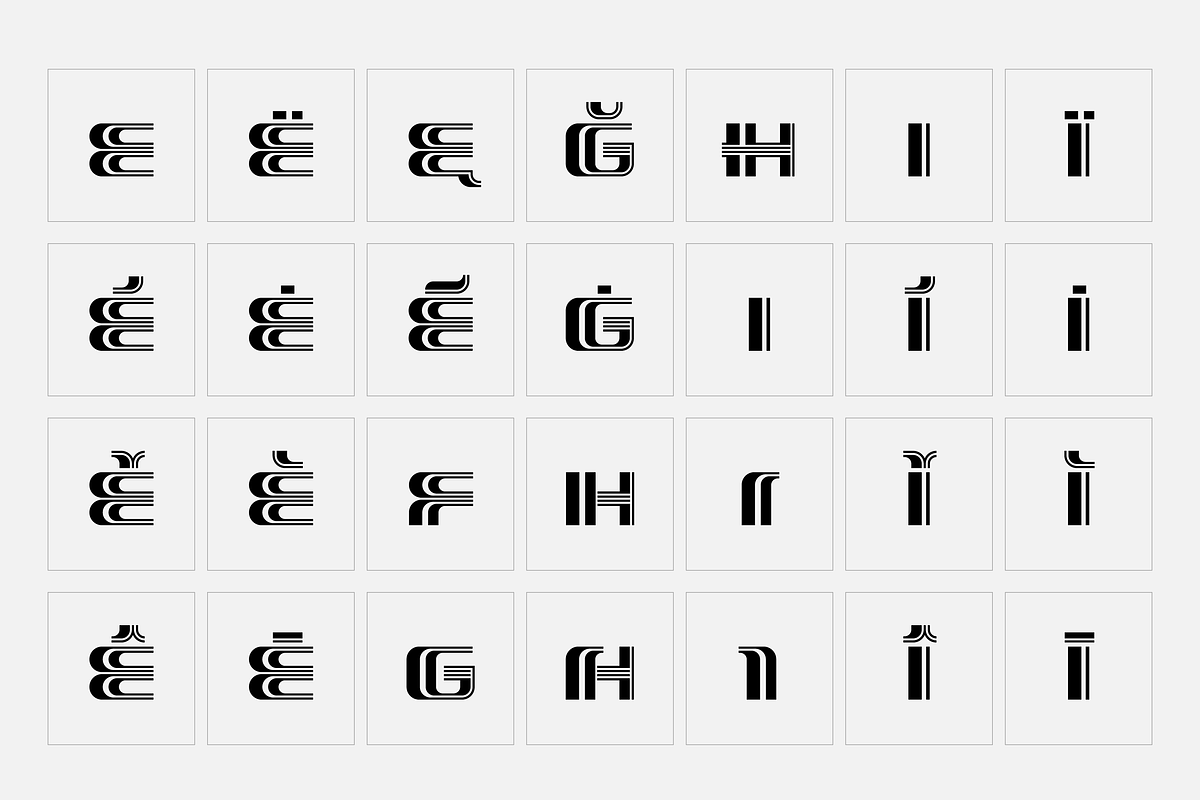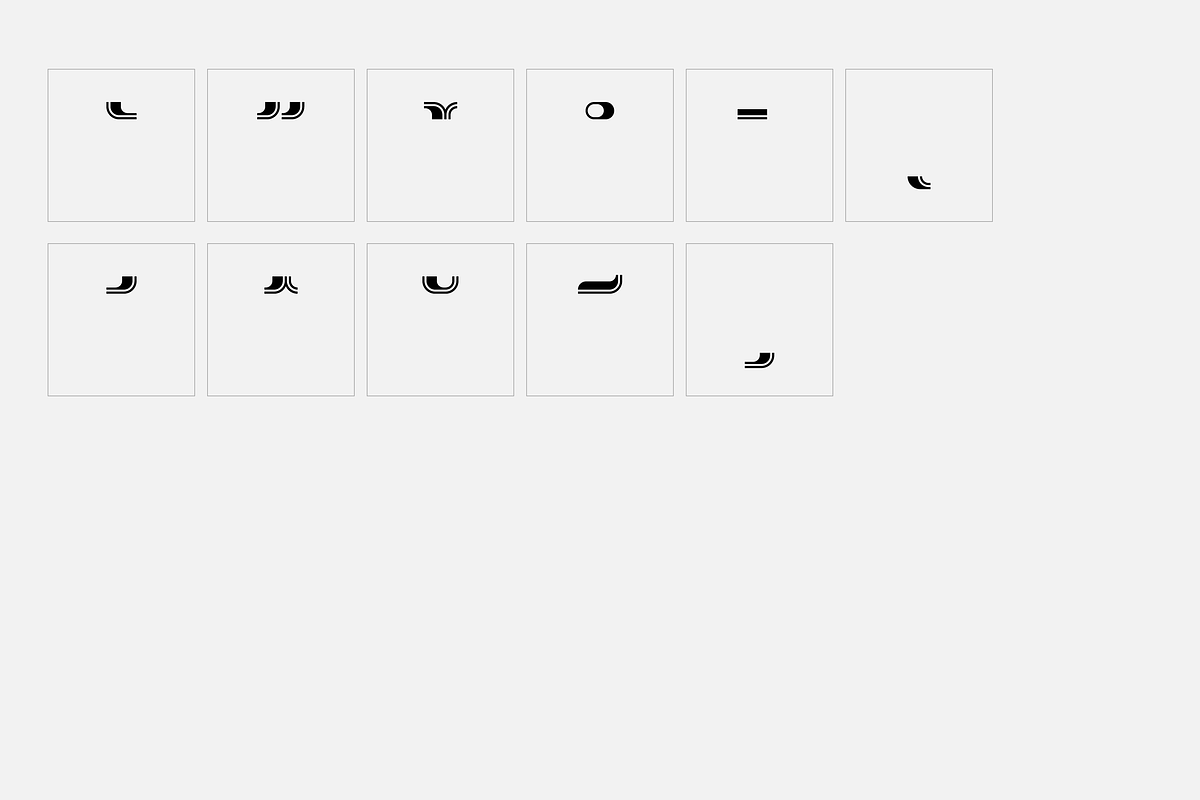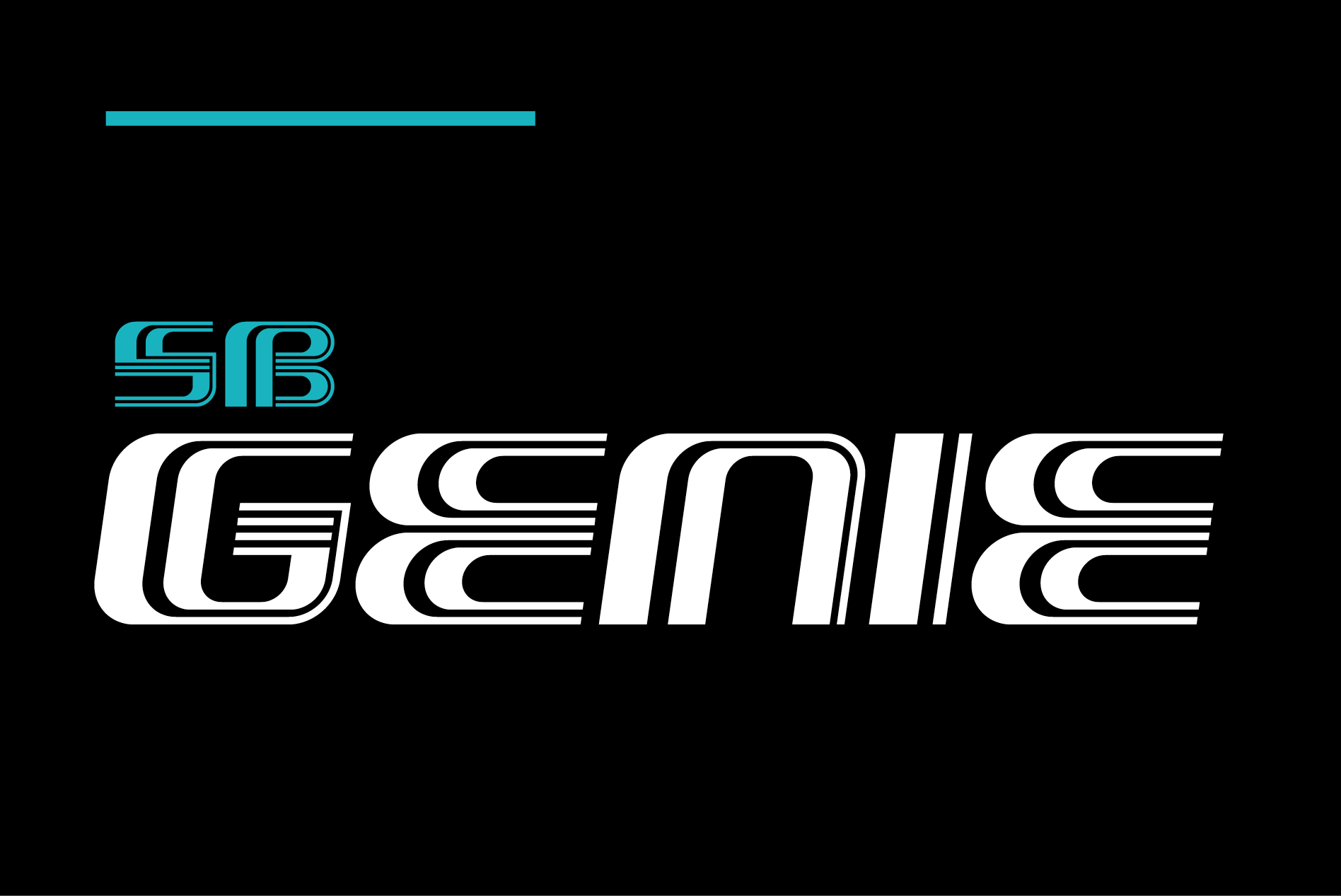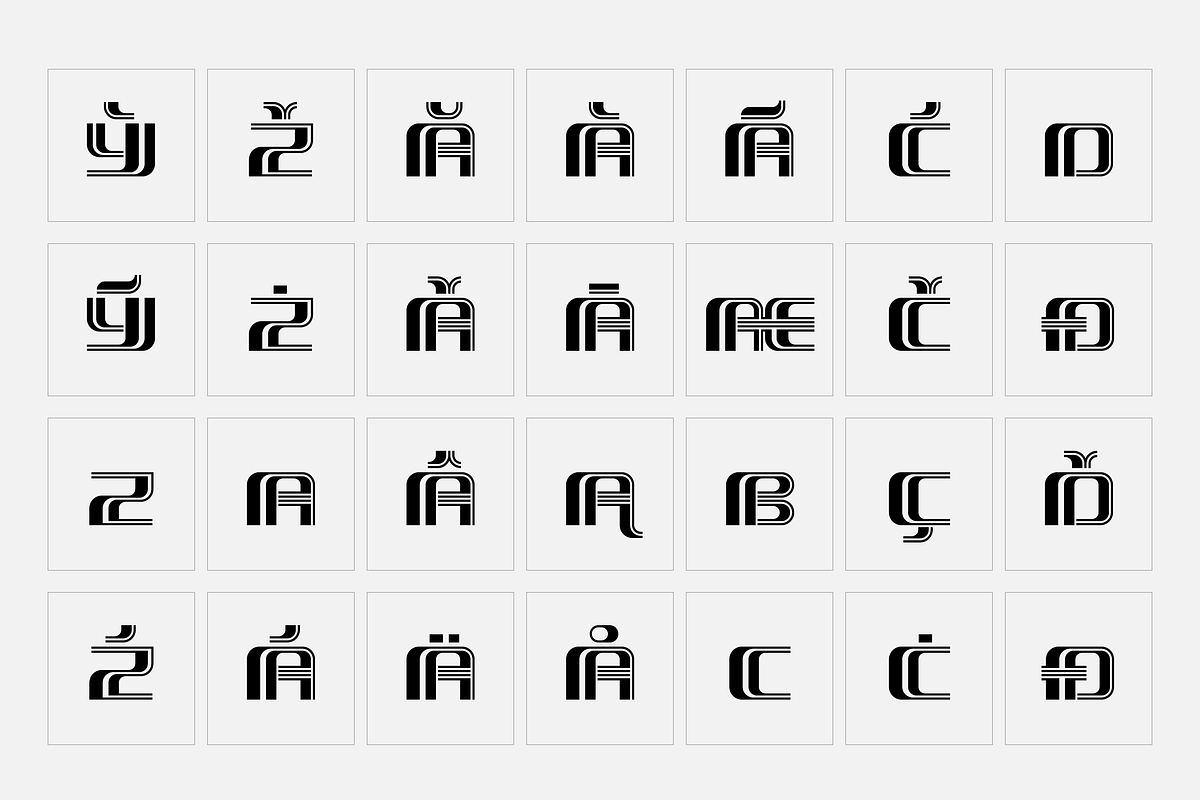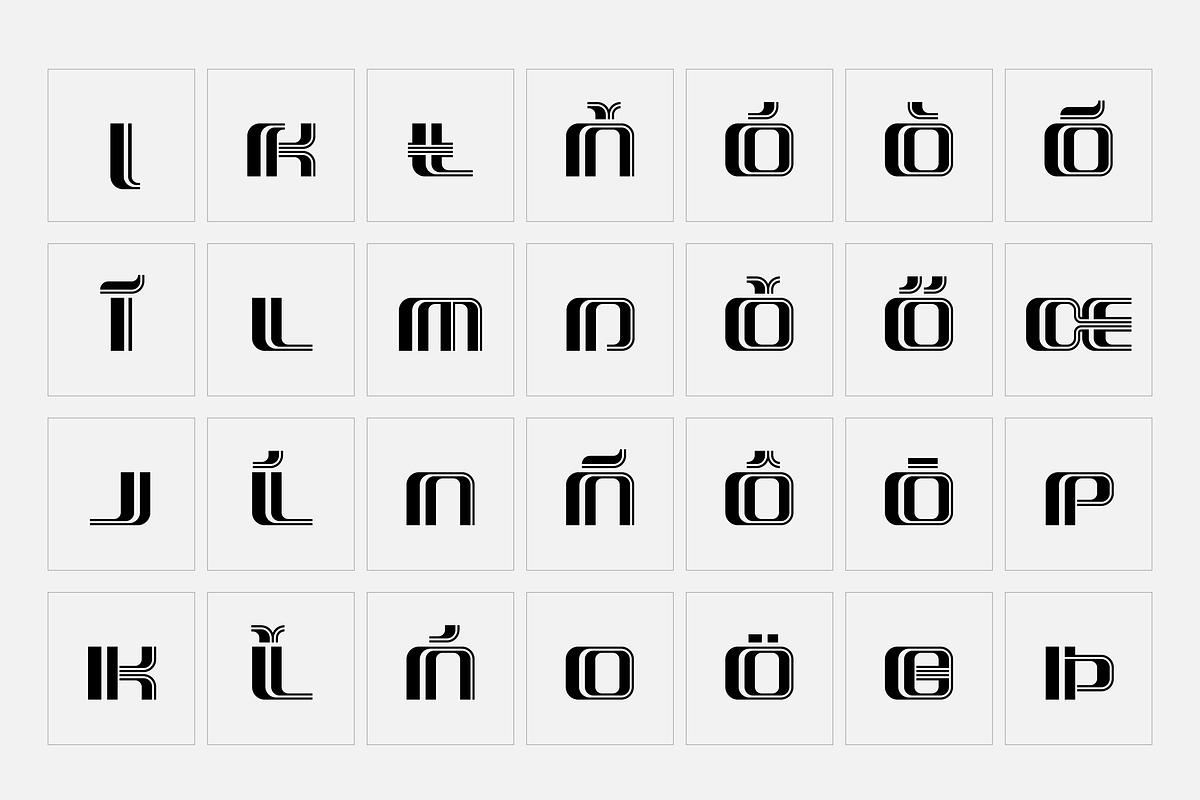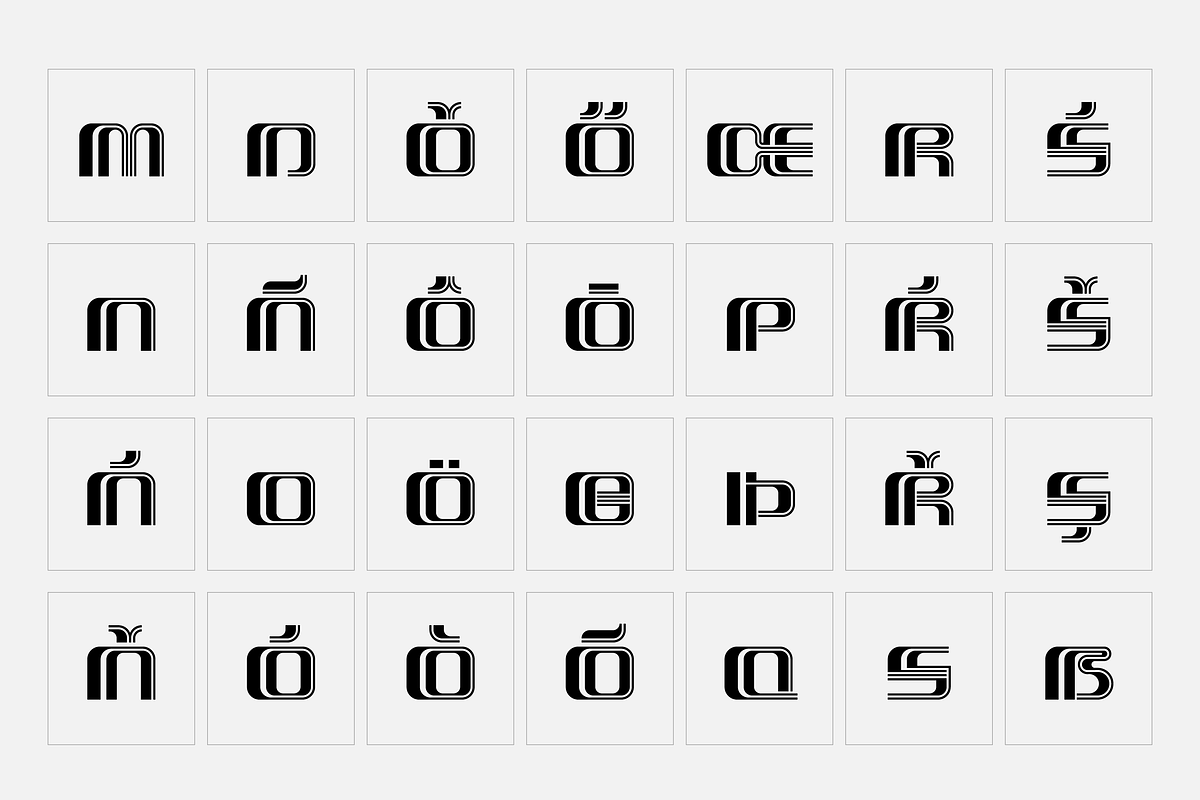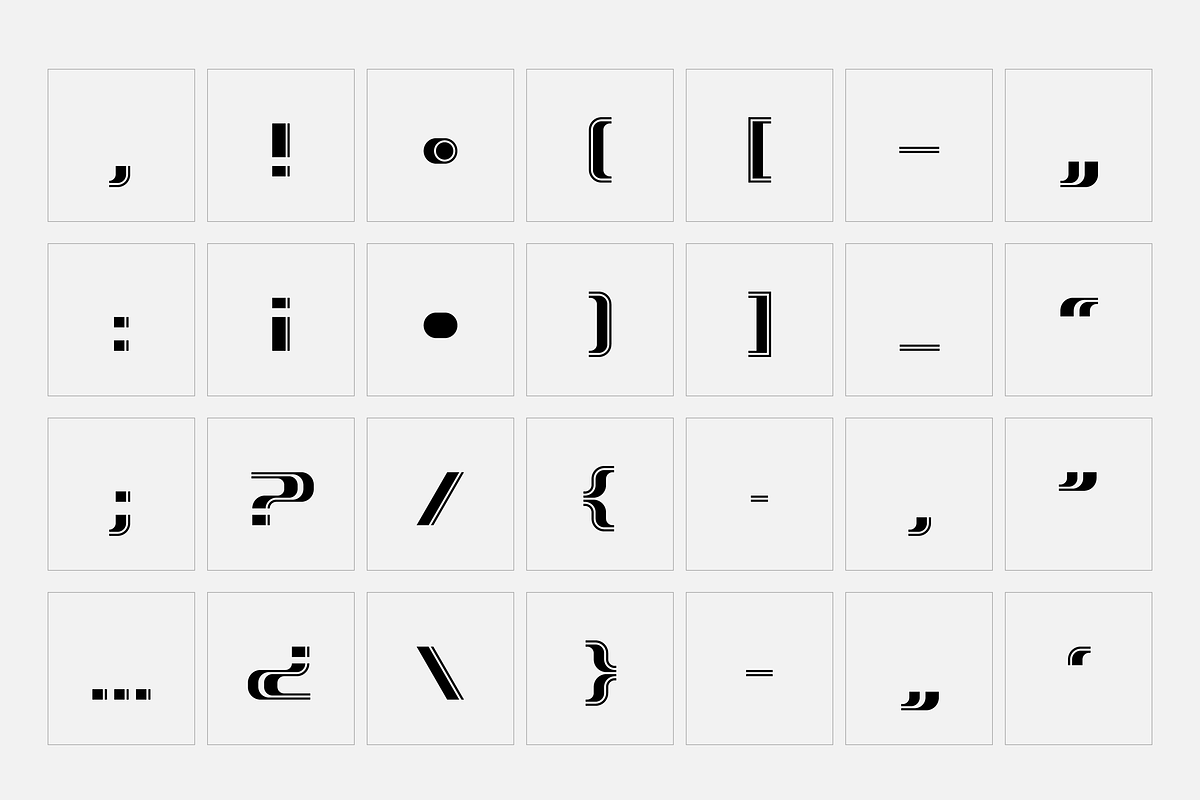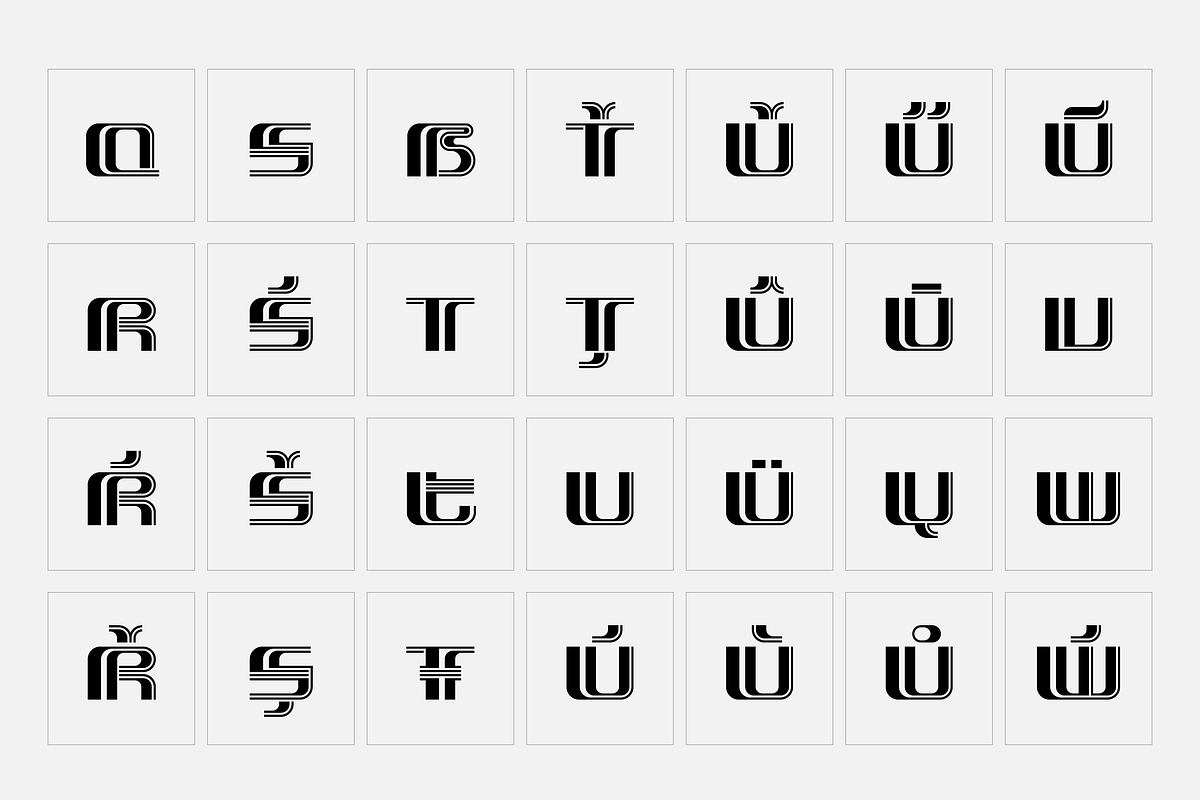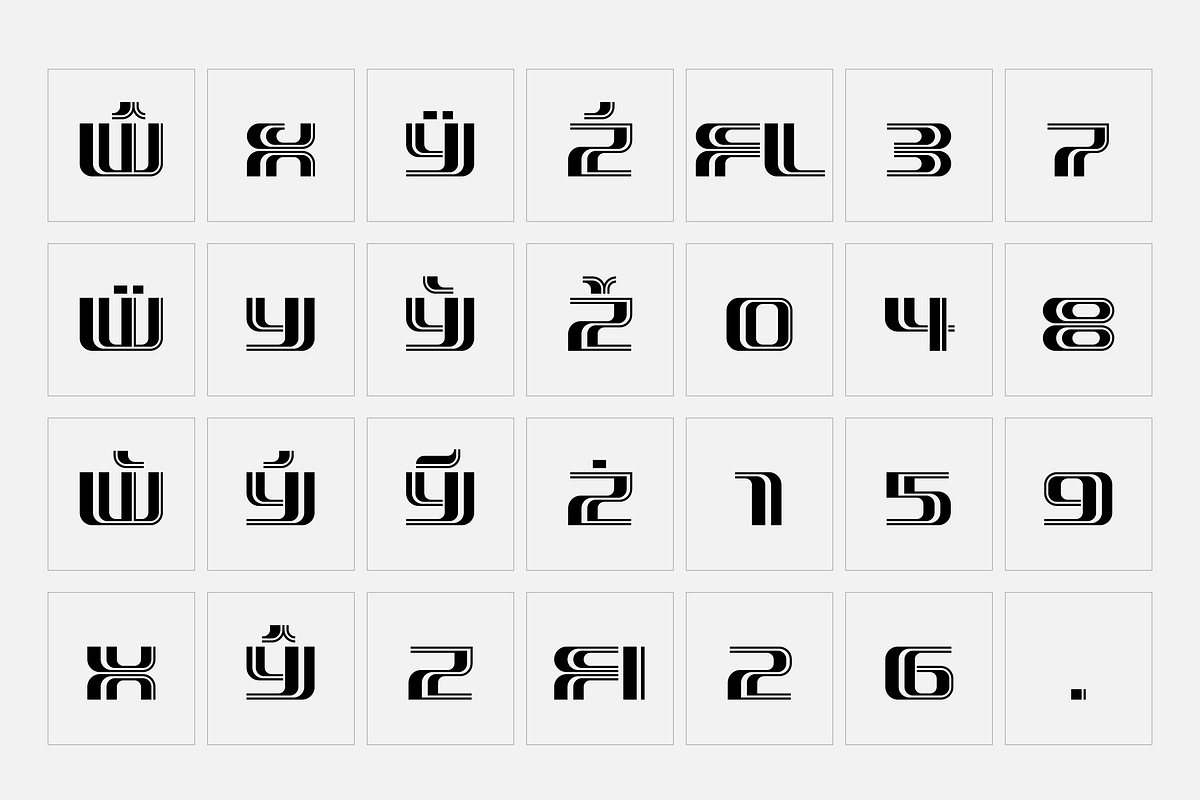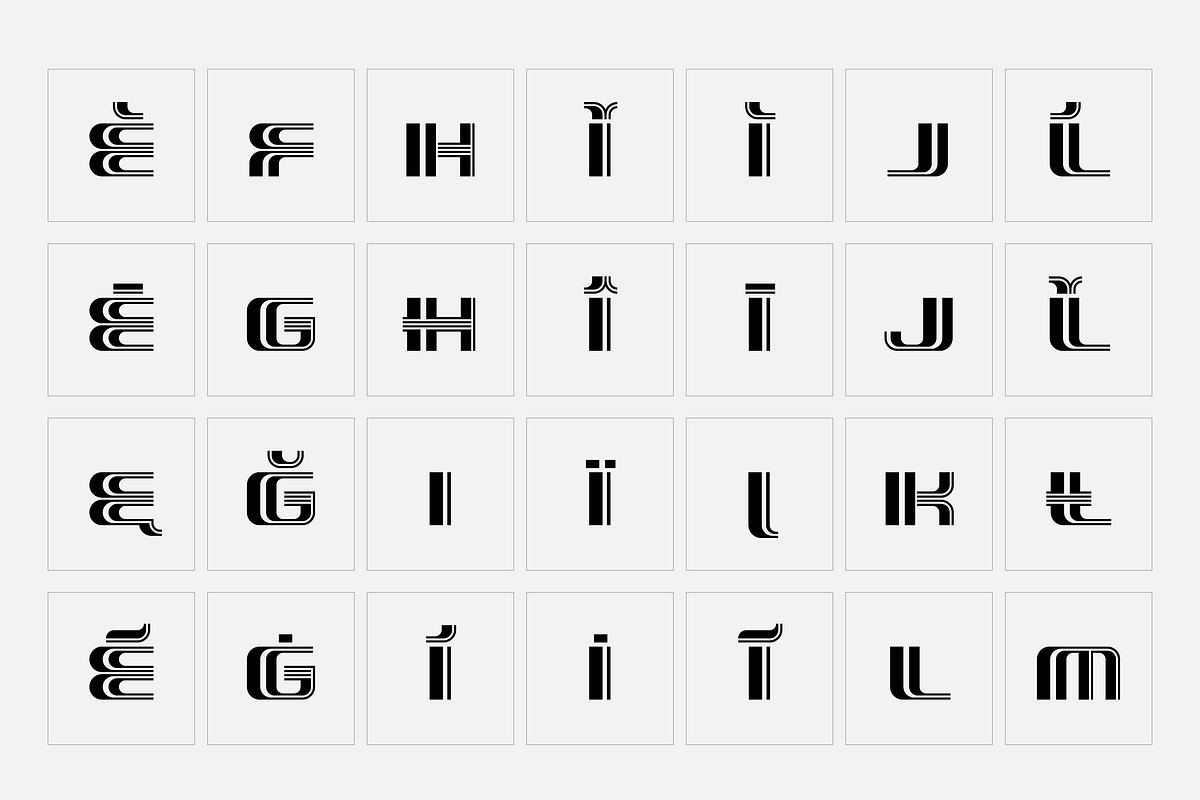
Genie - Op art font
- Stylistic alternates for many characters.
SB Genie is a geometrically constructed display typeface inspired by Op Art. It is a display typeface and is best used at larger sizes where visual impact is required.
It works well in simple, high-contrast colours and in black and white. The high-contrast striping creates a strong visual effect that is further enhanced by the precise circular curving and horizontal flow of the letterforms.